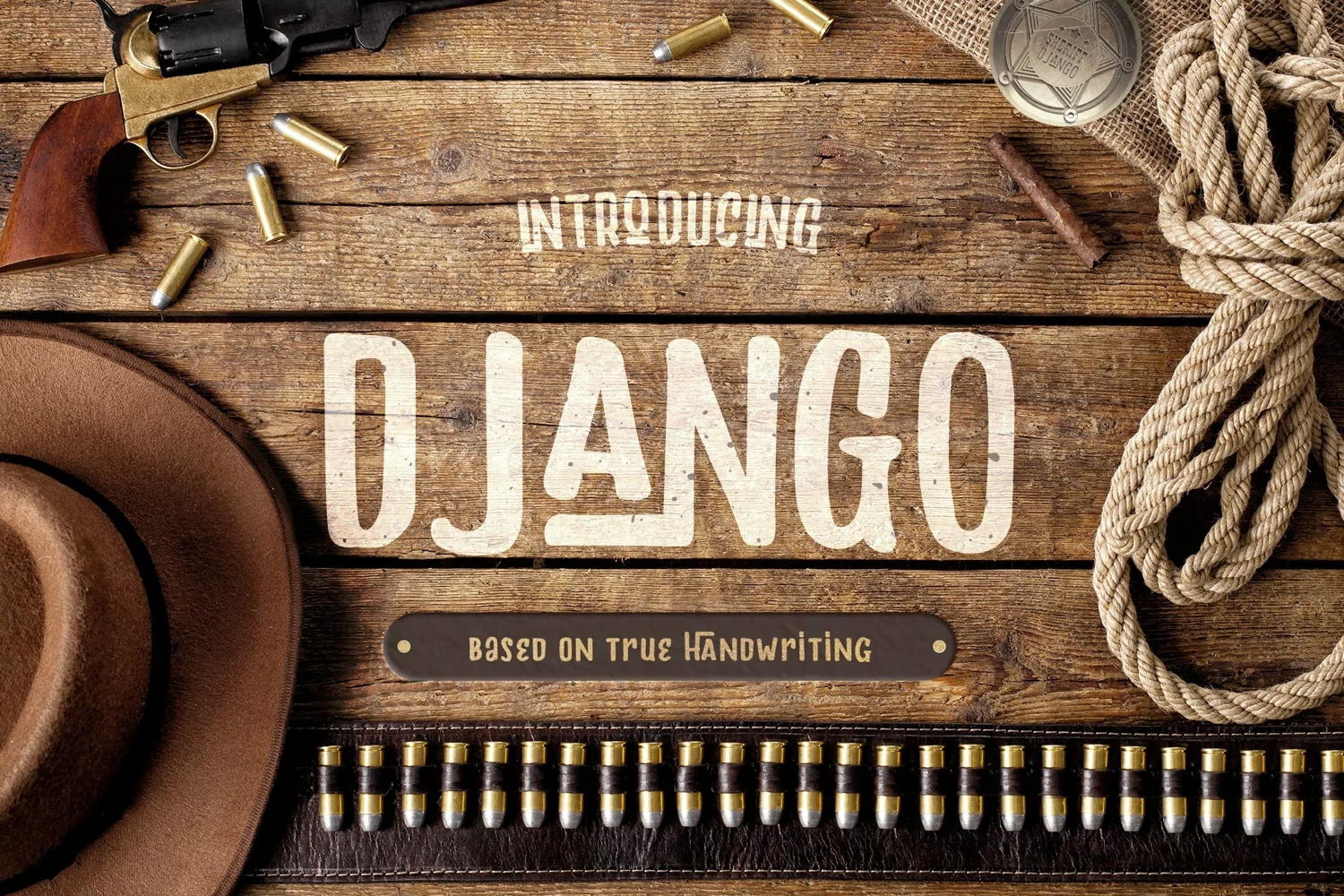
Web Font Django
Django is a fun Western Inspired Typeface which is fit for a range of projects. If it's normal characters were not enough, this font comes with some super cool alternatives to spice up your designs.